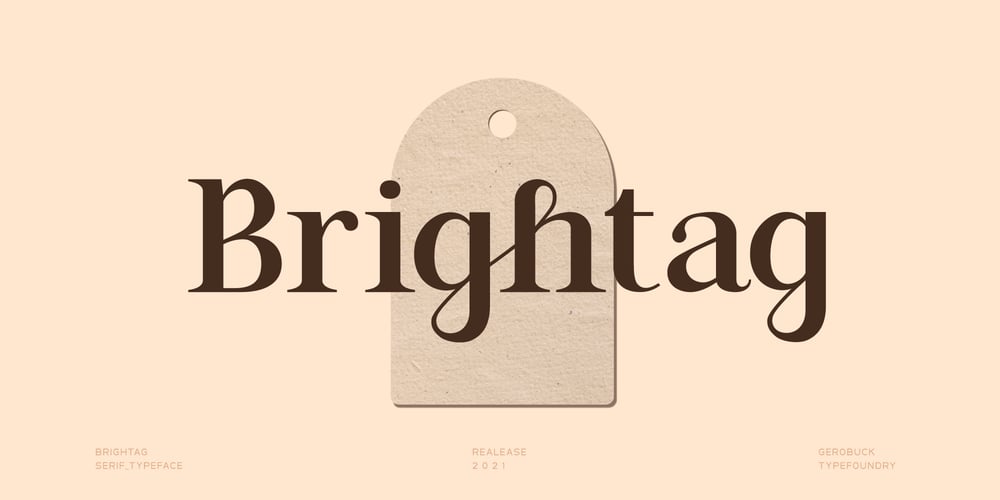
Brightag Font Family was designed by Haris Anggar Setioko and published by Gerobuck. Brightag contains 2 styles and family package options. Brightag, a serif display font with two modes, medium and italic. The Brightag font’s shape adapts the cursive style, thus showing a combination of the two styles to be more unique and decorative, very suitable for use in vintage or floral style designs. Alternate features are available and supports multiligual.